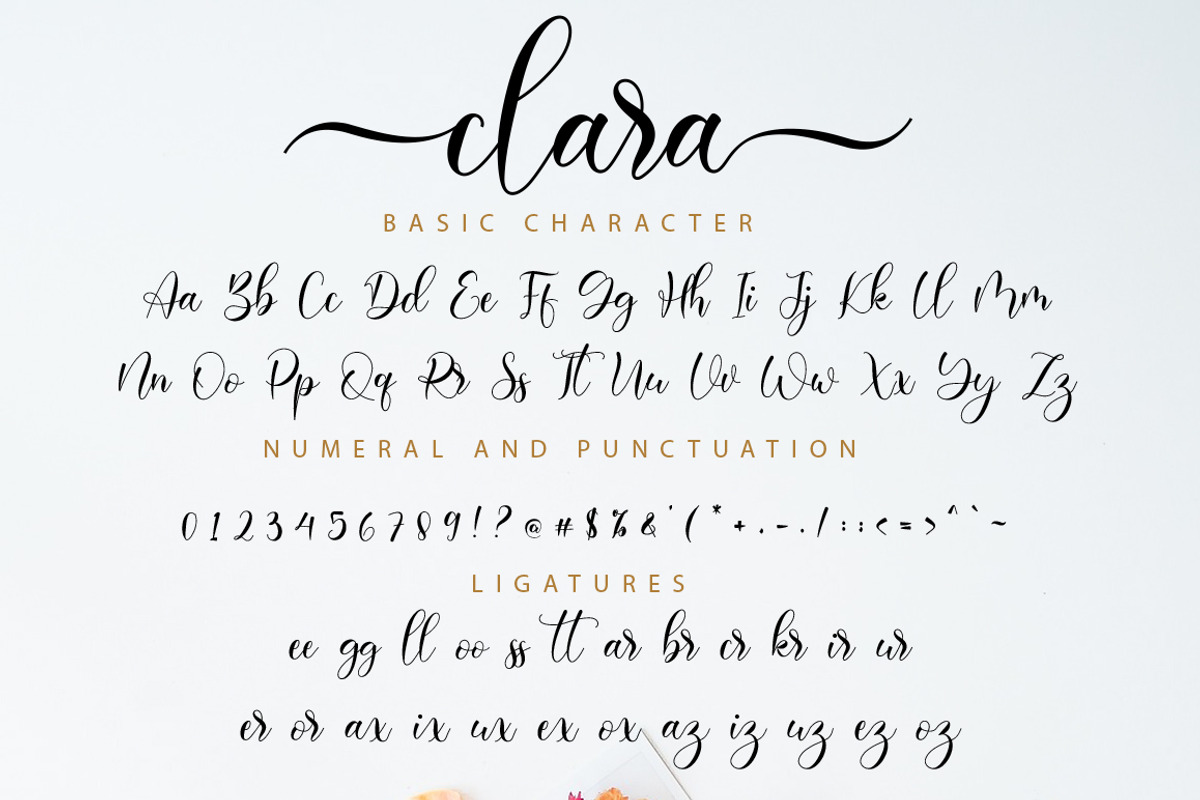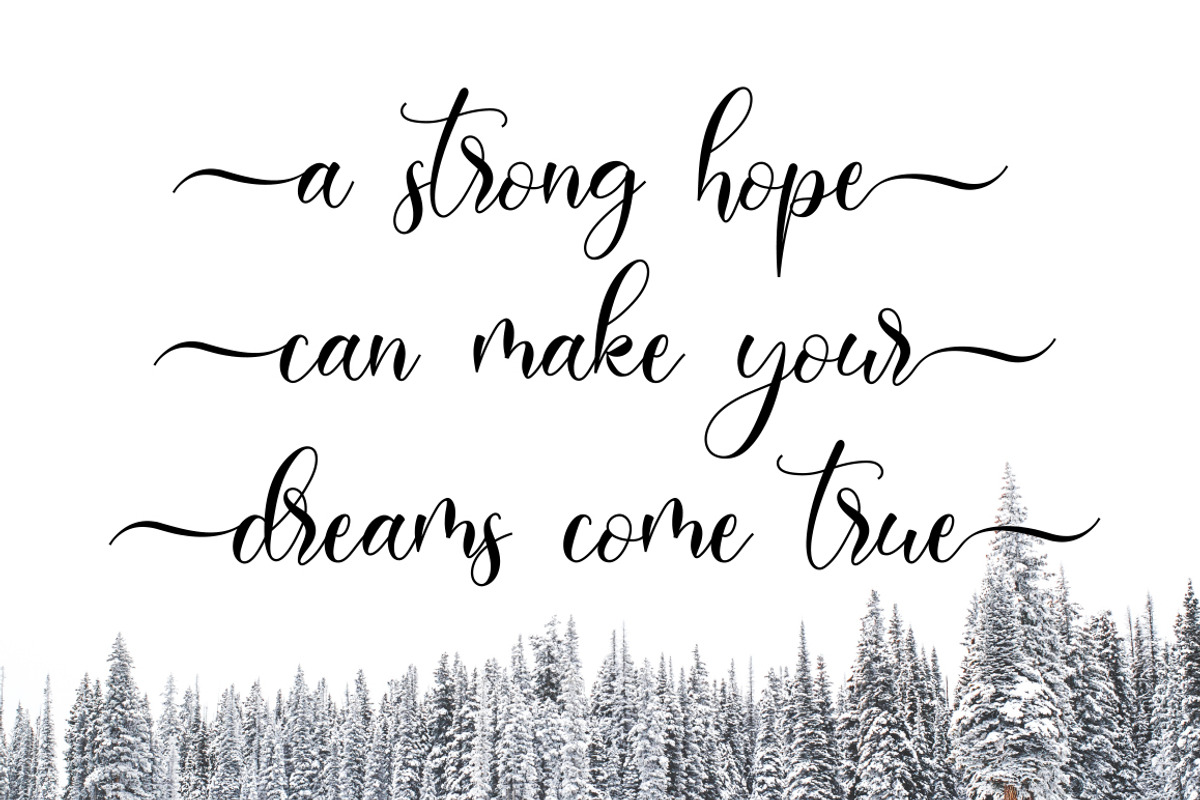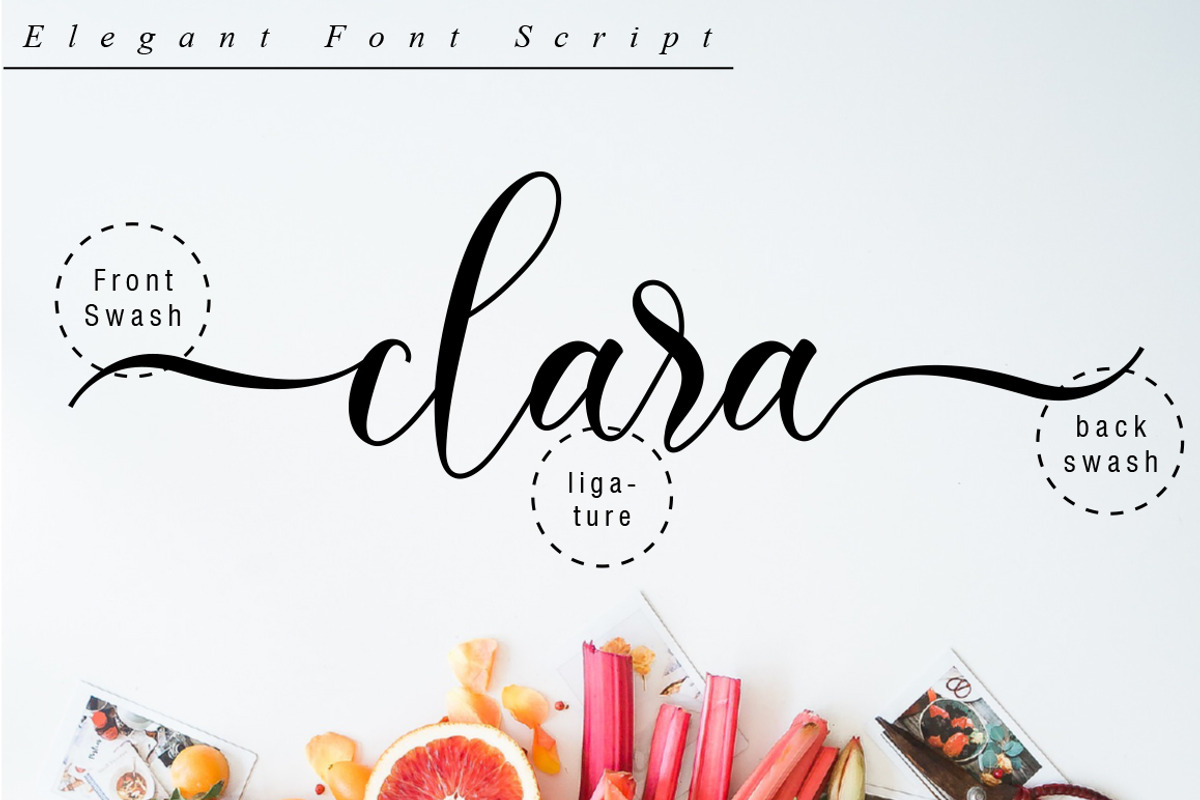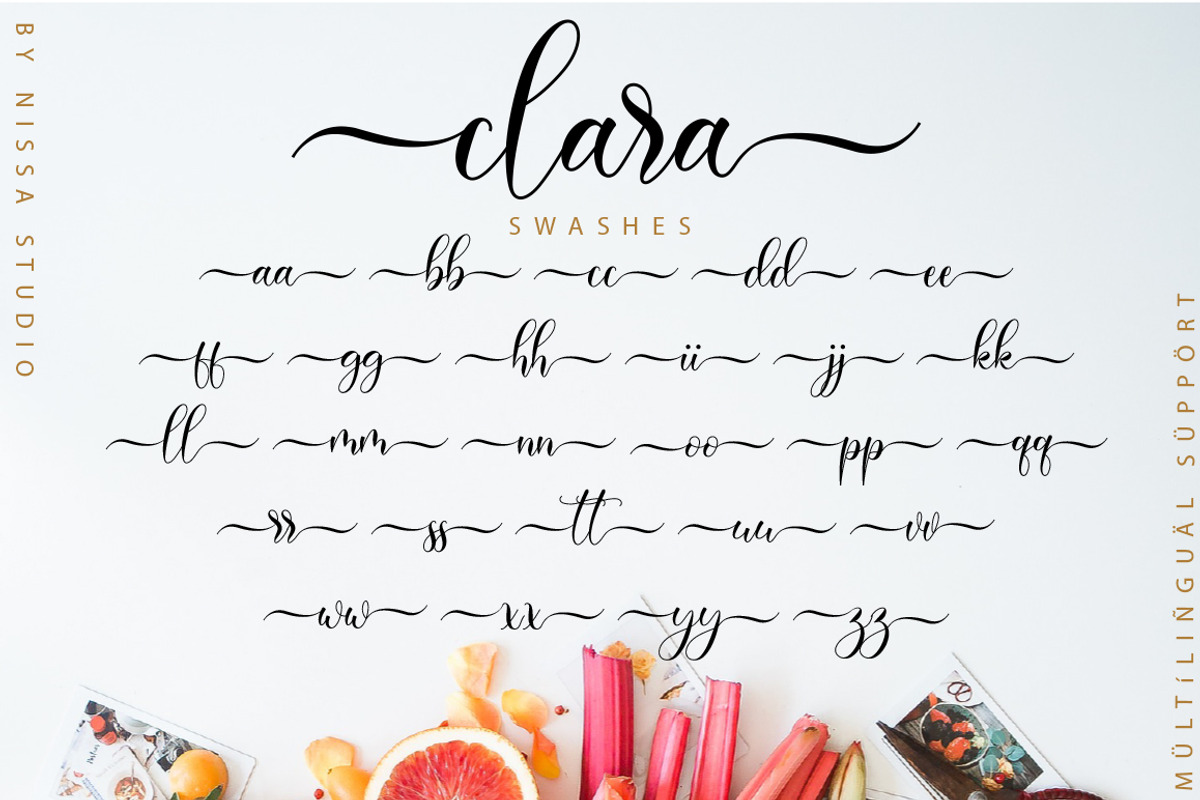
Clara Script
Clara is a beautiful script font. It has a classy, elegant, and modern look which can be used for logos, branding, invitations, stationary, wedding designs, social media posts, and every other design that needs a handwritten touch.
Each Font Has:
- Modern Handwritten Font
- Beautiful Swash (Ending tail)
- Beautiful Titling (Beginning tail)
- Special Ligatures